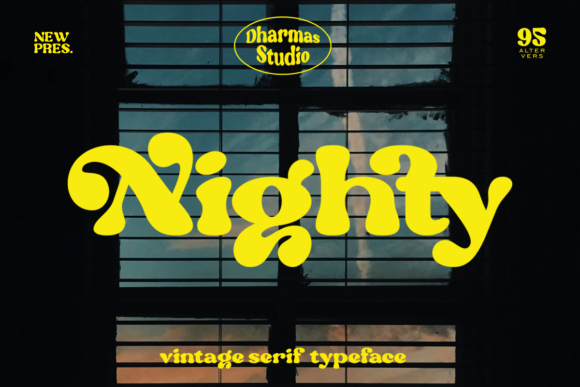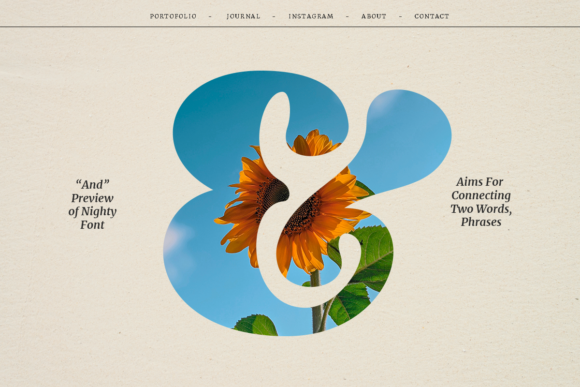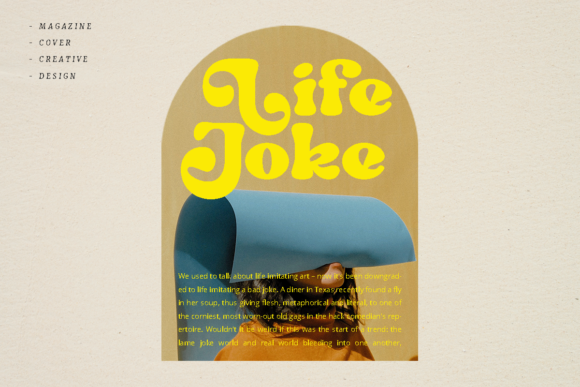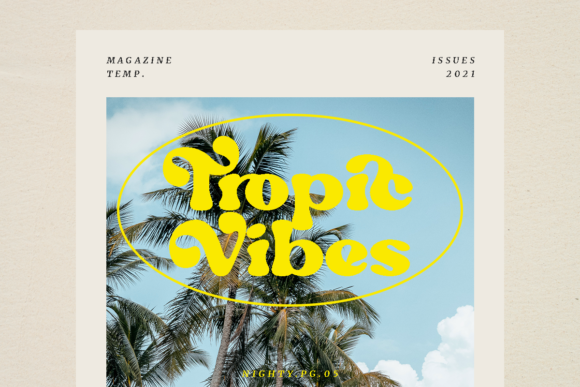
Nighty Font: Groovy Retro Serif for Vintage Branding & Cricut Crafts
About the Nighty Font
Make a bold statement with Nighty Font, a powerful and memorable font. Nighty is a cool, retro styled and uniquely lettered display font. It will elevate a wide range of crafting ideas, from cards, to branding, labels and much more. Nighty is PUA encoded which means you can access all of the glyphs and swashes with ease!
Nighty’s retro styling makes it ideal for headlines, logos, and short impactful text on packaging or posters. Its unique letterforms add a touch of vintage cool to branding projects targeting a younger, trend-conscious audience. However, avoid using Nighty for body text or lengthy paragraphs; its distinctive character is best suited for display purposes where it can make a strong visual statement.
This font’s playful yet sophisticated personality pairs well with clean sans-serif fonts like Montserrat or Open Sans for a balanced contrast. For a more vintage feel, consider pairing it with a serif like Playfair Display or Lora. Avoid pairing it with overly decorative scripts which could clash with its retro aesthetic.
Nighty’s core personality is bold and retro, lending itself to projects needing a stylish, confident, and slightly rebellious edge.